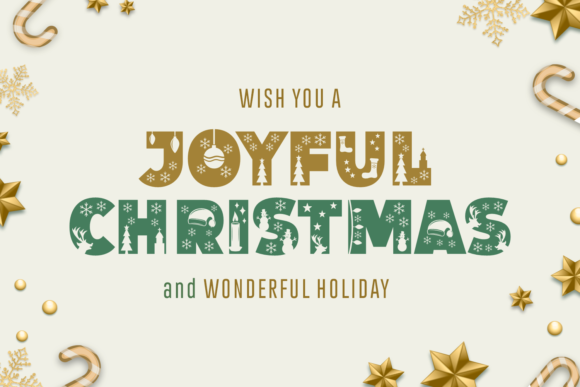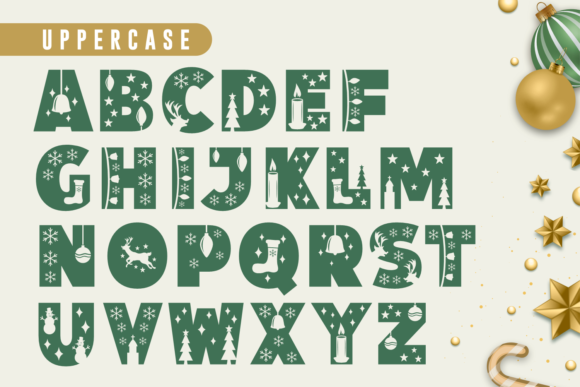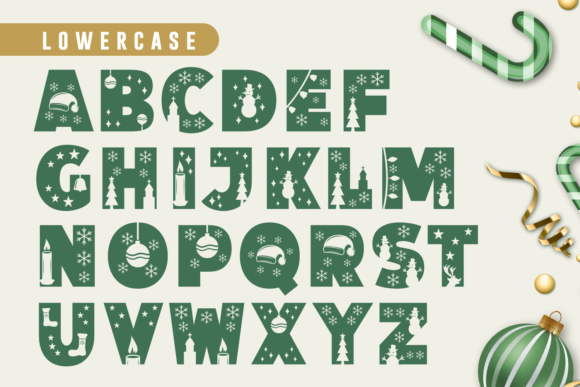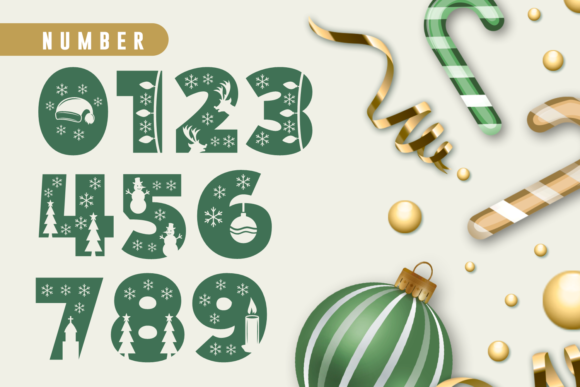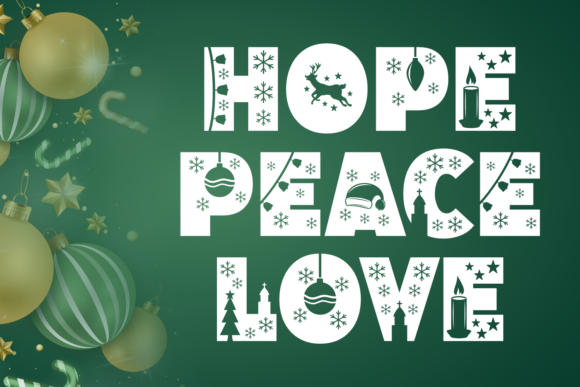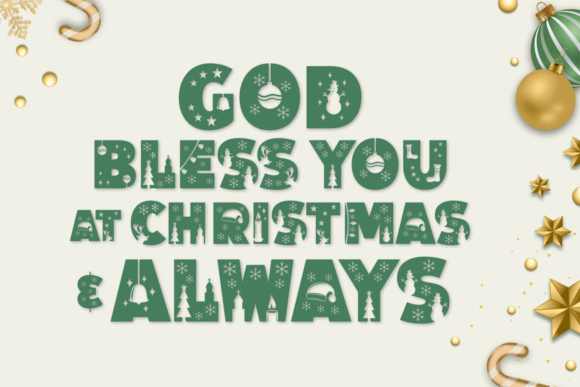
Introducing Amelo Christo Font: The Ultimate Festive Typeface for Your Creative Projects
Are you on the hunt for a font that exudes warmth, festivity, and a touch of elegance? Look no further than the Amelo Christo Font! This stunning, thick-lettered decorative font is perfect for designers and crafters seeking to add a dash of sophistication to their creations. With its ravishing style, Amelo Christo is sure to captivate your audience and leave a lasting impression.
What Makes Amelo Christo Font So Special?
Amelo Christo Font is a masterfully crafted typeface that boasts a unique blend of festivity, warmth, and refinement. Its thick, bold letters are carefully designed to convey a sense of luxury and celebration, making it an ideal choice for a variety of creative projects. Whether you’re working on wedding invitations, stationery art, social media posts, or any other design endeavor, Amelo Christo is sure to elevate your work to new heights.
Endless Creative Possibilities with Amelo Christo Font
One of the most exciting aspects of Amelo Christo Font is its versatility. This incredible typeface can be used in a multitude of design applications, including:
• Wedding Invitations: Create gorgeous, one-of-a-kind wedding invites that set the tone for an unforgettable celebration.
• Stationery Art: Add a touch of elegance to your stationery, journals, and planners with Amelo Christo’s beautiful, flowing letters.
• Social Media Posts: Make your social media posts stand out from the crowd with Amelo Christo’s eye-catching, festive style.
• Signage and Displays: Use Amelo Christo to create stunning signage, banners, and displays that grab attention and leave a lasting impression.
Why Designers and Crafters Love Amelo Christo Font
So, what makes Amelo Christo Font a favorite among designers and crafters? Here are just a few reasons:
• Easy to Read: Despite its decorative nature, Amelo Christo Font is surprisingly easy to read, making it perfect for body text and headlines.
• Highly Versatile: Amelo Christo can be used in a wide range of design applications, from digital projects to print materials.
• Unique and Memorable: Amelo Christo’s distinctive style ensures that your designs will stand out from the crowd and be remembered.
Tips for Getting the Most Out of Amelo Christo Font
To truly make the most of Amelo Christo Font, here are a few expert tips:
• Experiment with Colors: Amelo Christo looks stunning in a variety of colors, so don’t be afraid to get creative and try out different hues.
• Mix and Match: Combine Amelo Christo with other fonts to create visually interesting and dynamic designs.
• Pay Attention to Spacing: Make sure to adjust the spacing between letters and words to ensure that your design looks balanced and polished.
In conclusion, Amelo Christo Font is a truly exceptional typeface that offers a unique blend of festivity, warmth, and elegance. Whether you’re a designer, crafter, or simply someone who appreciates beautiful typography, Amelo Christo is sure to captivate and inspire. With its endless creative possibilities, ease of use, and stunning style, Amelo Christo Font is an absolute must-have for anyone looking to elevate their designs and take their creativity to the next level.